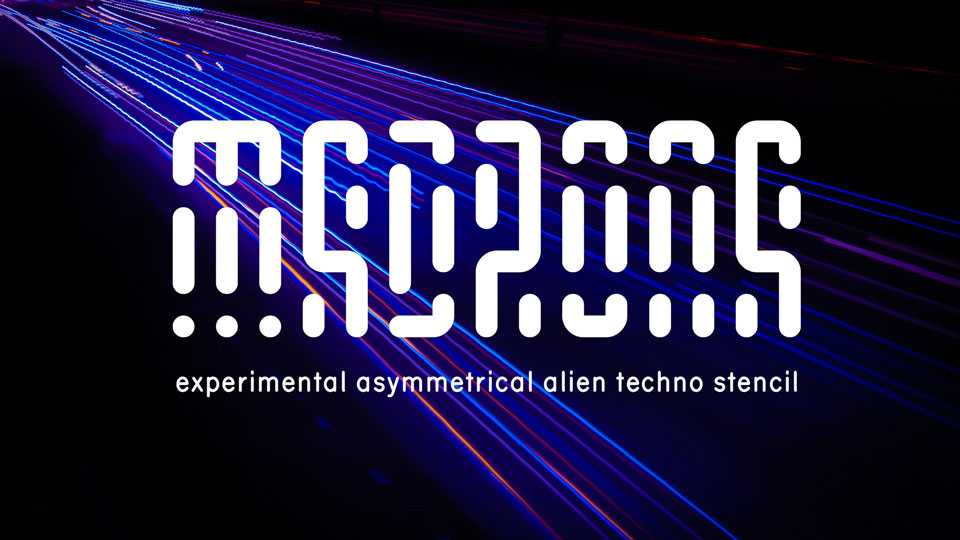
Download Madrona font, an experimental asymmetrical alien techno stencil typeface. Perfect for sci-fi and futuristic design, prints, posters and other artworks.
Designer: Pixel Kitchen